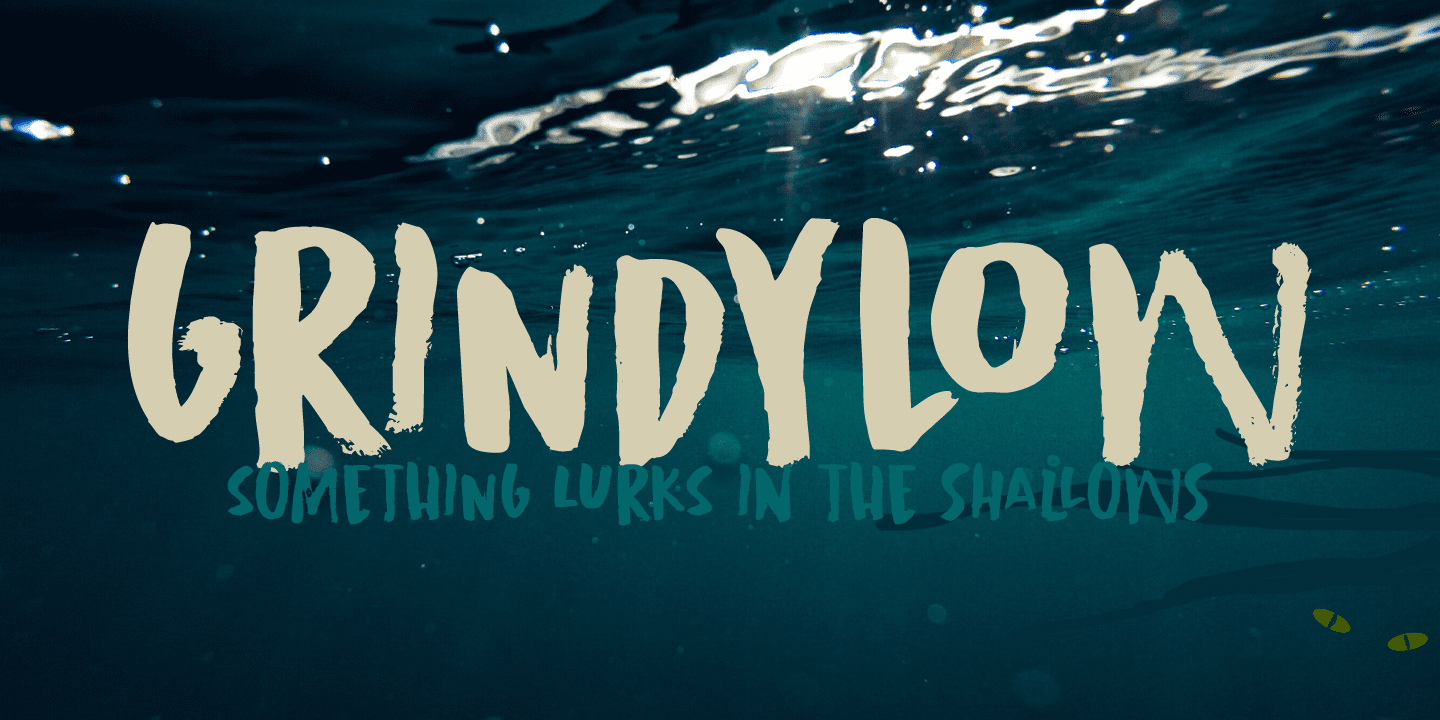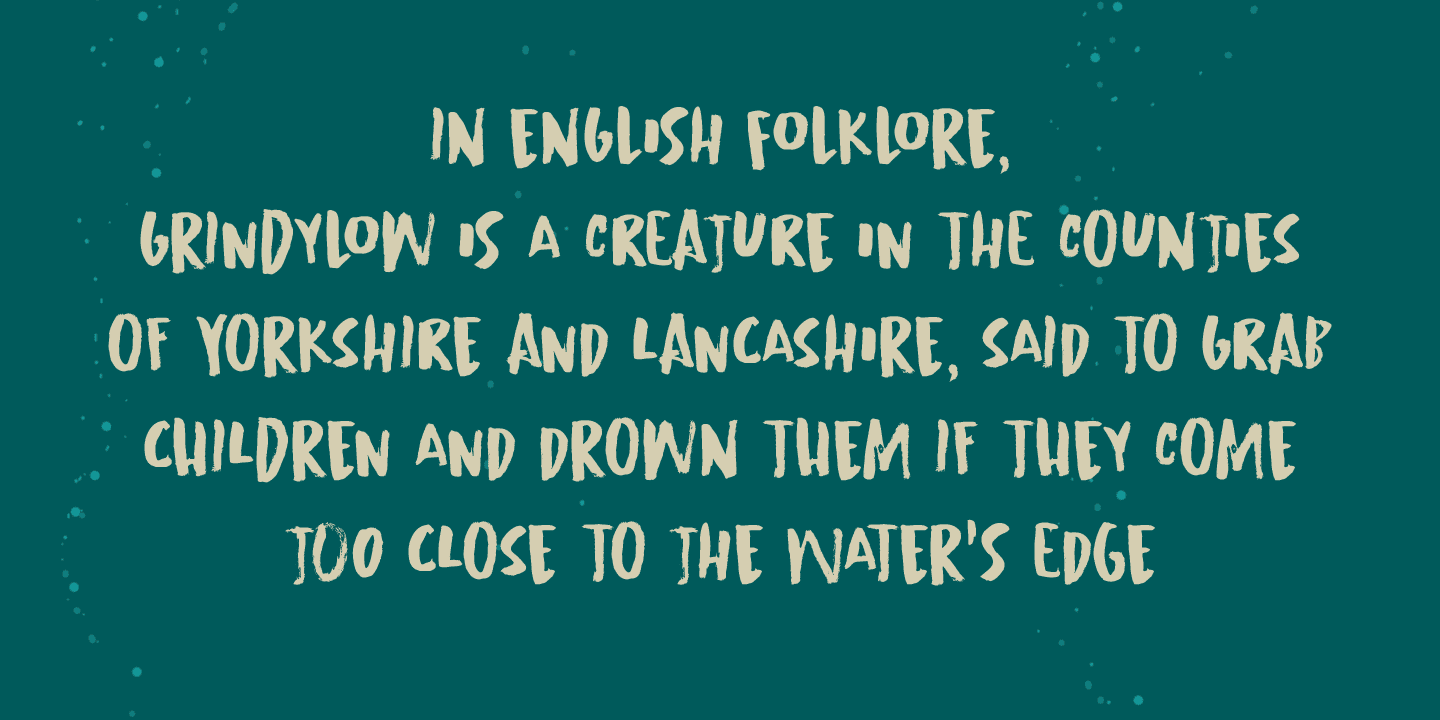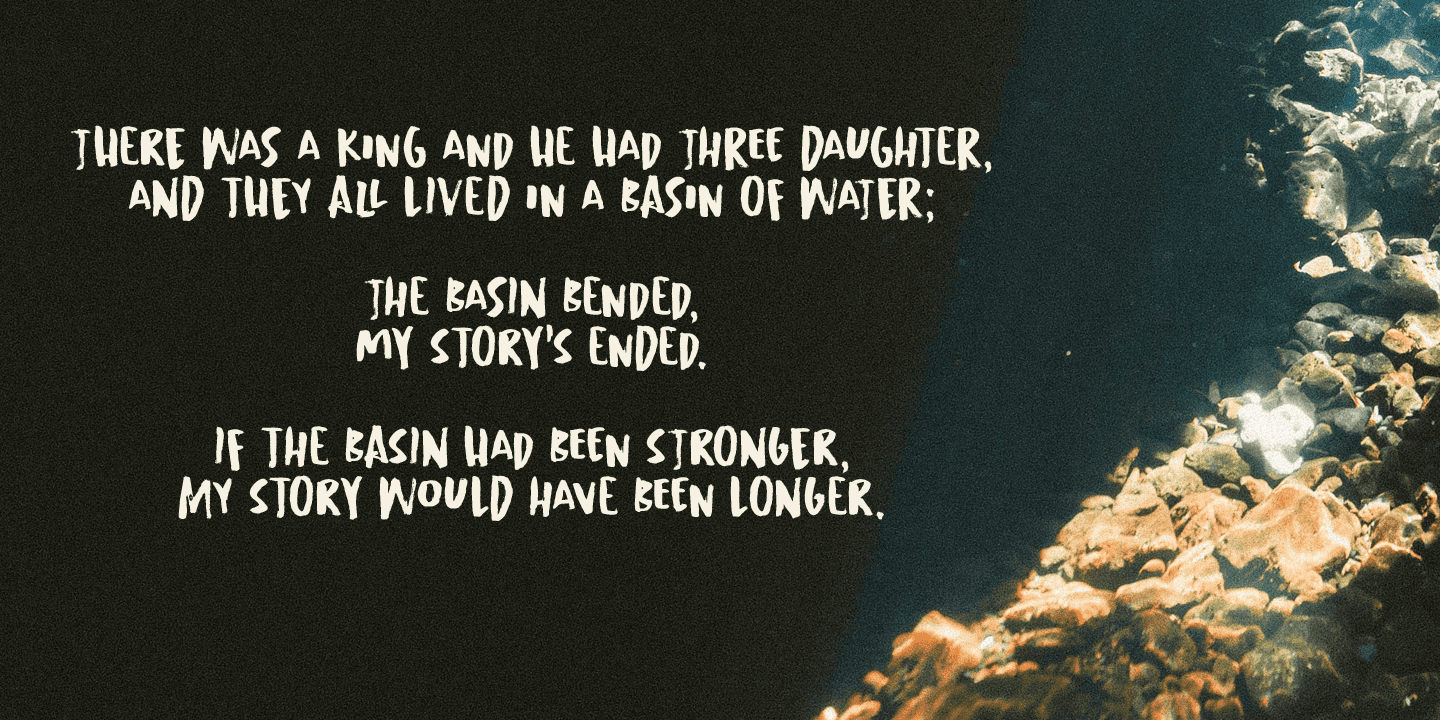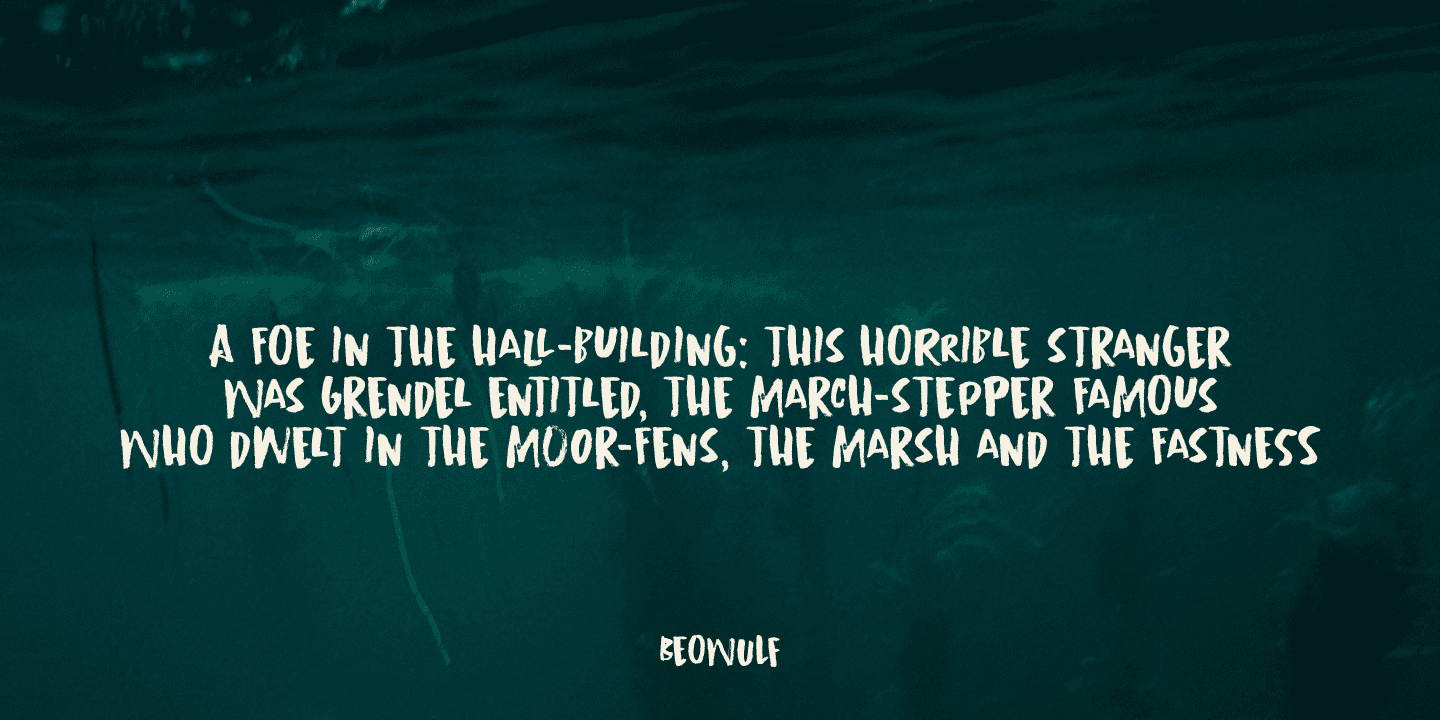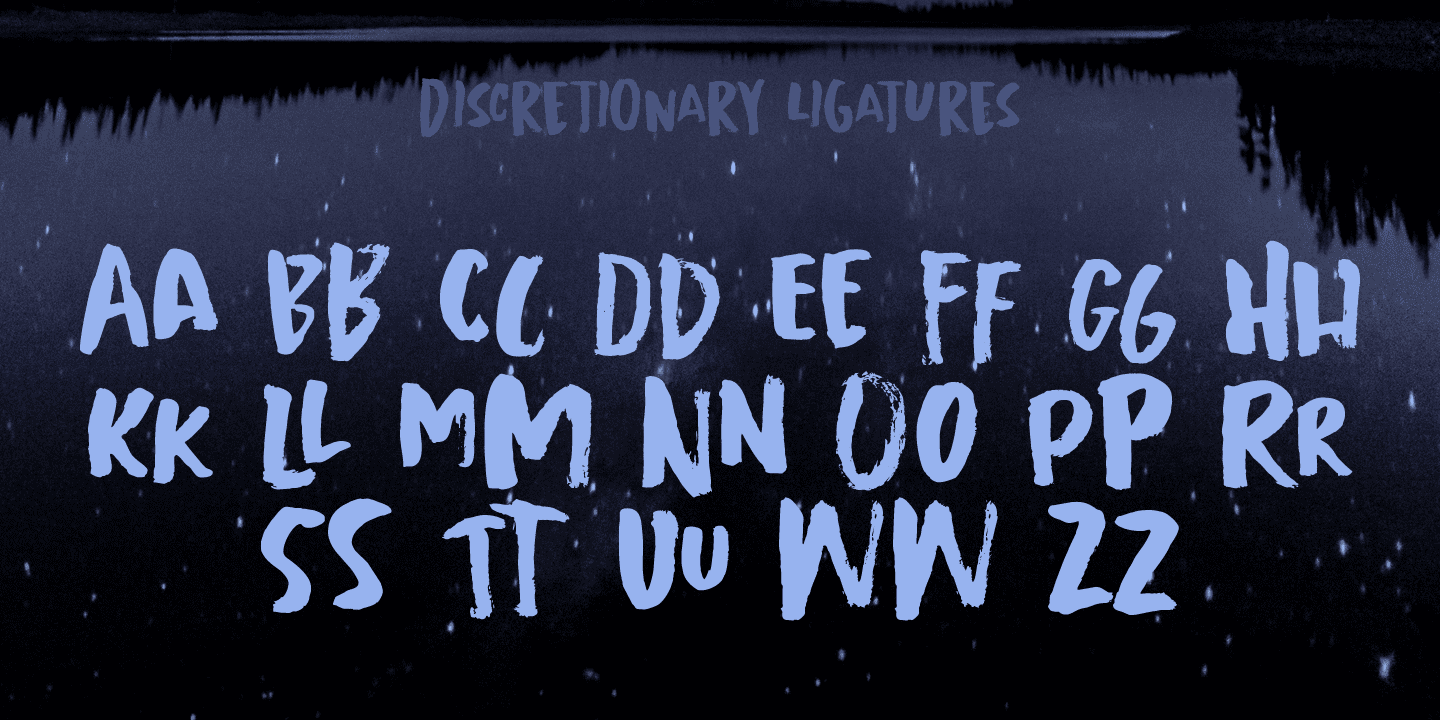
Grindylow Family (2 fonts)
Grindylow font does not grab children; it is a rather messy handmade brush font. I used a cheap brush and Chinese ink to create the glyphs. Comes with discretionary double letter ligatures for the lower case.